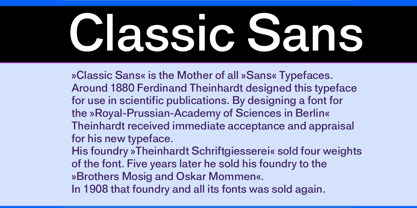
Classic Sans
by Wiescher Design
About Classic Sans Font Family
»Classic Sans« is the Mother of all »Sans« typefaces. Around 1880 Ferdinand Theinhardt designed this Grotesk for use in scientific publications. By designing his font for the »Royal-Prussian-Academy of Sciences in Berlin« Ferdinand Theinhardt received immediate acceptance and appraisal for his new typeface. His own foundry »Theinhardt Schriftgiesserei« published four weights. Five years later he sold his foundry to the »Brothers Mosig and Oskar Mommen«. In 1908 »Mosig and Mommen« was sold again. Check Wikipedia for details under Theinhardt. In those days letters had to have serifs in order to be real typefaces. »Sans« typefaces of that time were not accepted as »real typefaces«, they were something »weird«. In German weird translates to »grotesk«! The font was used for »Accidentien« (small typesetting jobs), like leaflets, business cards, letterheads and so on. It was a weird font for small jobs. Last year in Berlin I found some type-samples of Theinhardts Grotesk in Erik Spiekermanns extensive library and was instantly dedicated to revive the original typeface with most of its inconsistencies. I added some weights and corresponding italic cuts with a light slant. I designed small-caps, all kinds of numbers as well as ligatures and currency symbols, I also added the necessary diacritics in order to make the typeface usable for most latin-writing languages. Classic Sans 12-Pack contains the following cuts: XLight and XLight-Italic, Light and Light-Italic, Medium and Medium-Italic, Roman and Roman-Italic, Bold and Bold-Italic as well as Black and Black-Italic. The Medium weight is lighter than the Roman and can be used to typeset a lighter but sturdy body-copy. This packet is most useful for all kinds of jobs and will never let you down in terms of elegance and usability. It is a very good offer at the low »12-Pack« price. Enjoy this original font!
Designers: Gert Wiescher
Publisher: Wiescher Design
Foundry: Wiescher Design
Design Owner: Wiescher Design